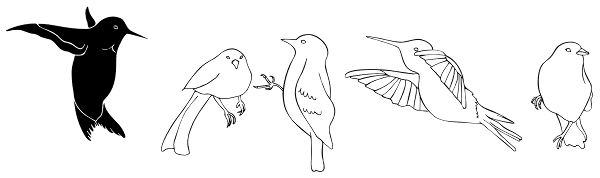
Birds
Birds is a beautiful picture font which features hand-drawn illustrations of birds & feathers. Many distinct bird species are represented. Each bird illustration also appears in a silhouette version.